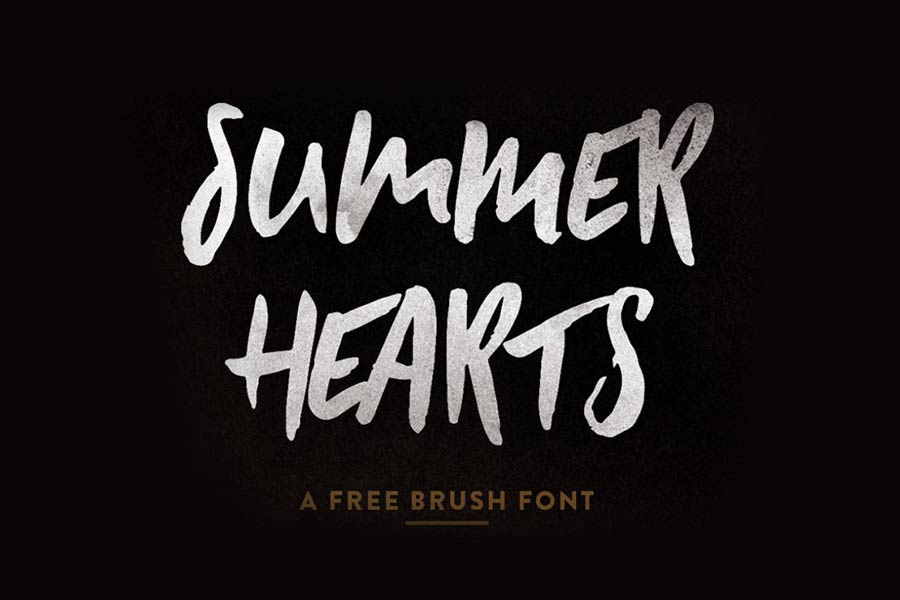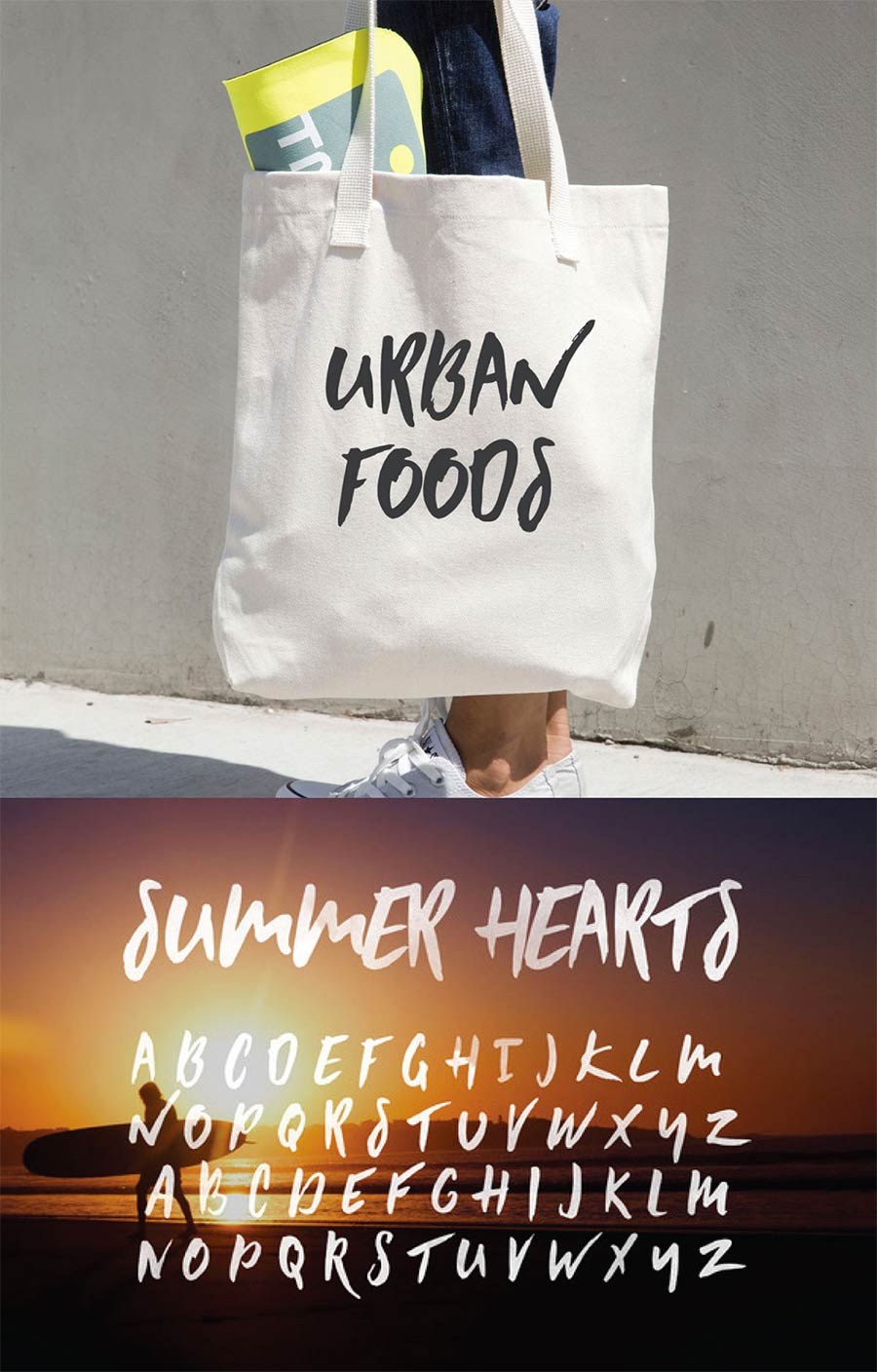
Summer Hearts is a hand painted all-caps brush typeface that is available for download for free. It has expressive strokes, which make this font works beautifully on its own, on any design mediums and applications, or accompanied with simple, geometrical sans serif fonts.